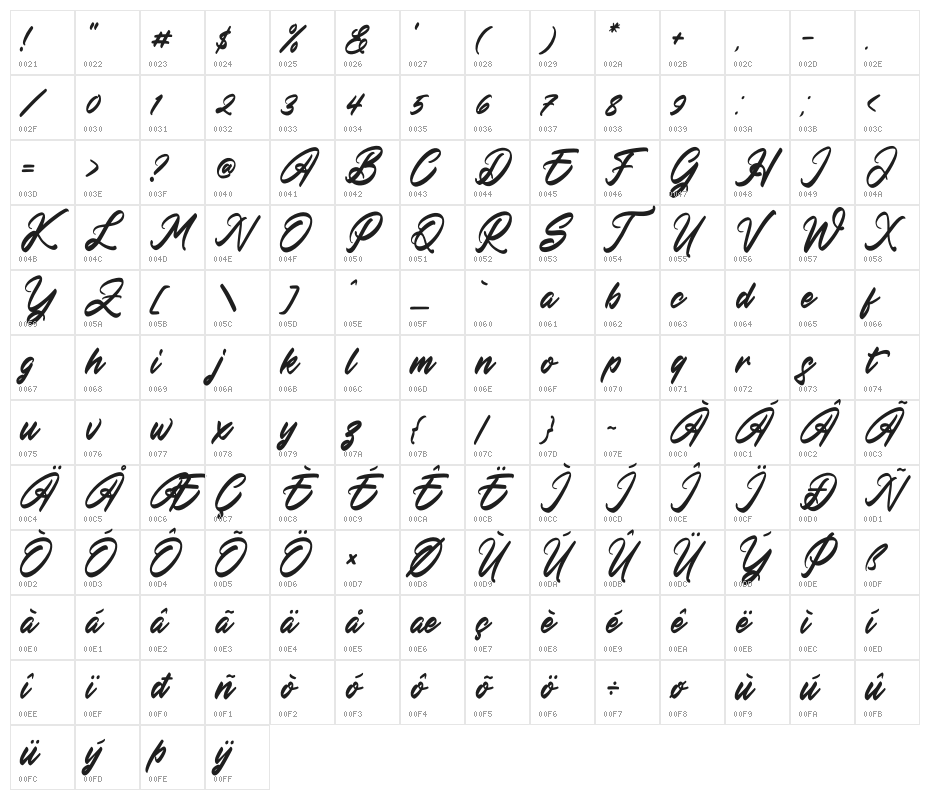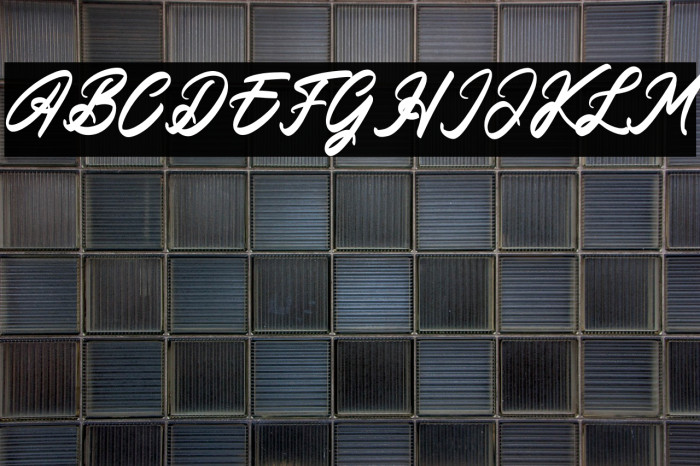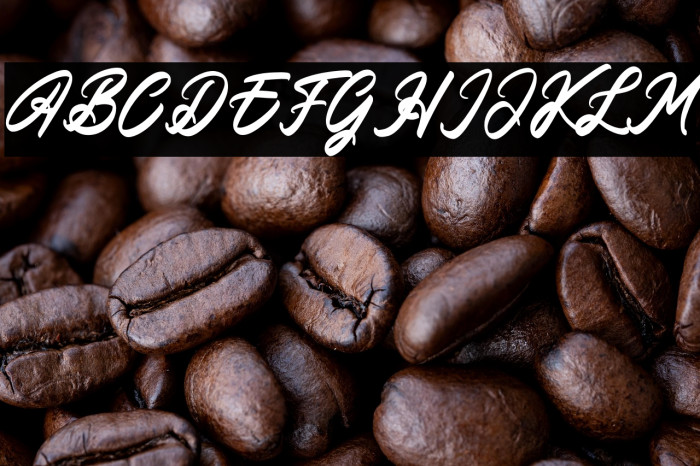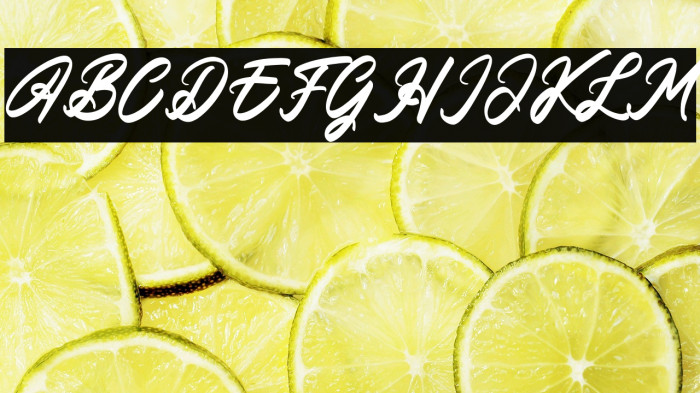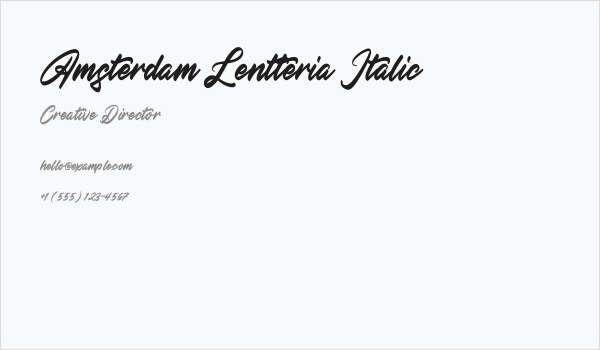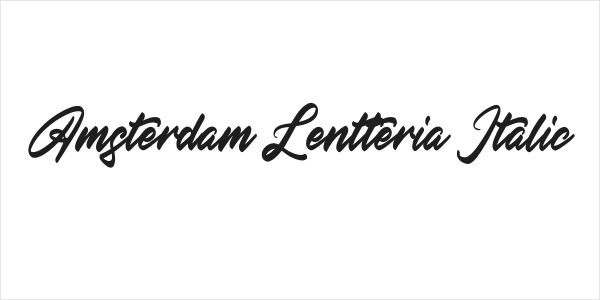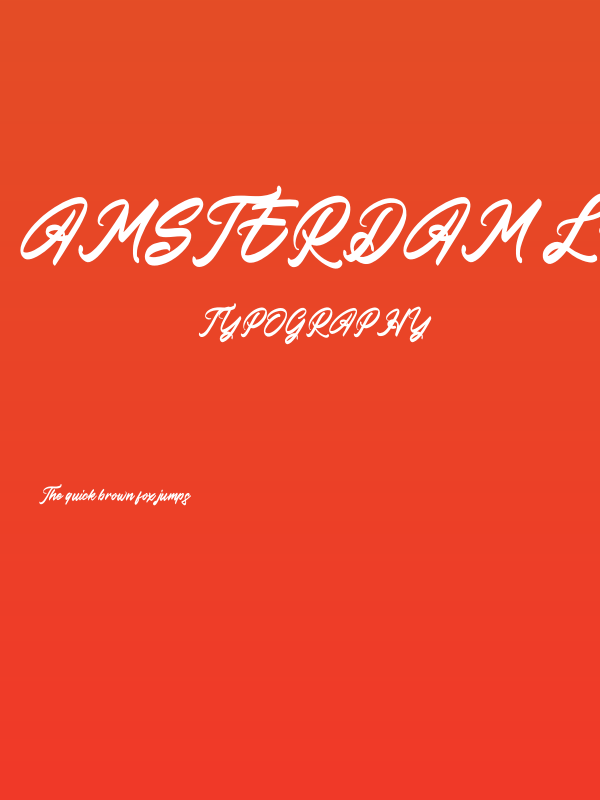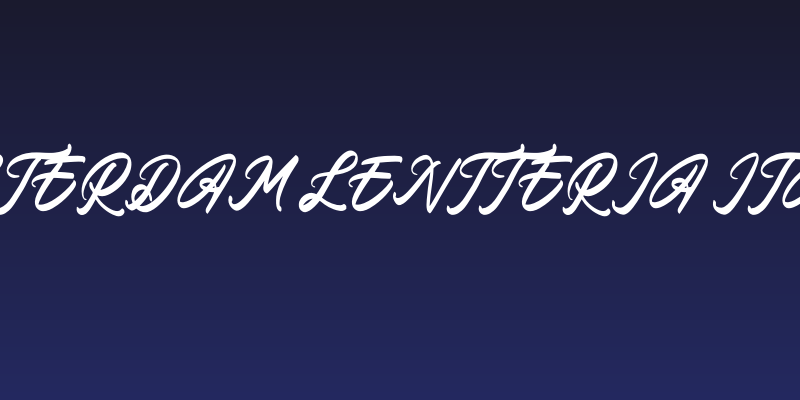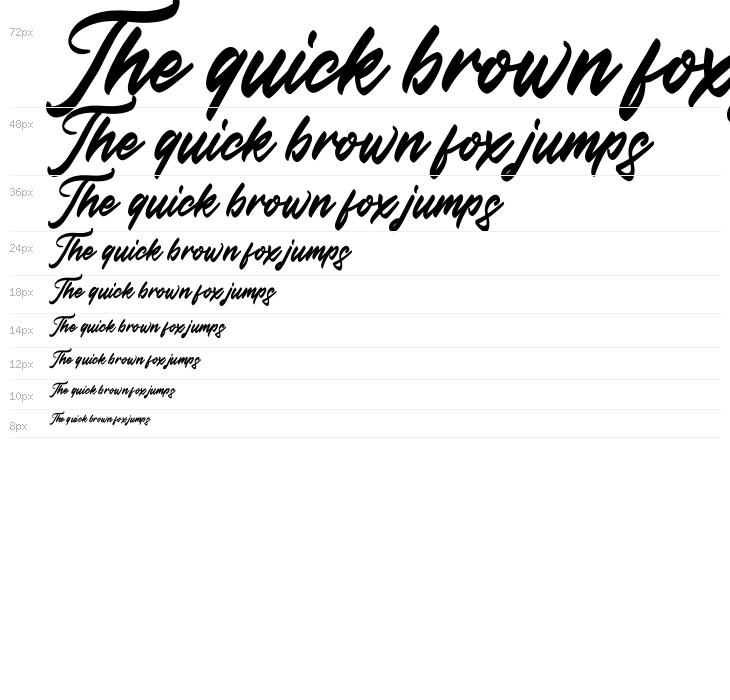
Amsterdam Lentteria Italic Font
Amsterdam Lentteria Italic Description
This font exhibits a bold and expressive script style, characterized by its flowing, cursive letterforms. The uppercase letters are elegantly connected, while the lowercase letters maintain a consistent slant, enhancing the italic nature of the font. The numerals and special characters are crafted with the same fluidity, ensuring a cohesive appearance throughout. The overall design is dynamic and energetic, making it suitable for creative and artistic projects. Its bold strokes and high contrast between thick and thin lines add to its visual impact, making it stand out in any design.